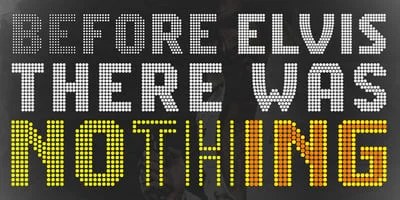
CA Viva Las Vegas Font
CA Viva Las Vegas Font excels in entertainment design applications including casino resort branding, Las Vegas show promotions, gambling establishment signage, entertainment venue materials, neon-lit restaurant communications, party supply packaging, theatrical production posters, glamorous event invitations, showbiz marketing campaigns, and dazzling lifestyle brands. This electrifying typeface brings Strip authenticity to high-energy entertainment projects.
What makes CA Viva Las Vegas Font truly exciting is its perfect capture of Las Vegas entertainment magic with flashy letterforms that evoke bright lights and casino excitement through spectacular design elements. The font features show-stopping characters with Vegas proportions and entertainment glamour that convey luxury, excitement, and the intoxicating energy of Sin City nightlife. Its spectacular personality and casino character make it ideal for brands celebrating entertainment culture, gaming excitement, and audiences who appreciate Vegas glamour, show business, and the thrilling atmosphere of world-class entertainment destinations.
The CA Viva Las Vegas Font family typically includes Regular weight with potential neon and glitter variations that enhance its Vegas character. These dazzling options provide designers with complete entertainment styling while maintaining the font's distinctive casino elegance and spectacular presentation across various entertainment applications and Vegas contexts.
Whether you're developing entertainment venue branding, creating casino campaigns, or designing spectacular marketing materials, CA Viva Las Vegas Font delivers the entertainment authority and Vegas sophistication that show business projects require. Its exceptional glamour and casino appeal make it invaluable for designers working with entertainment companies, gaming establishments, and show business brands requiring typography that celebrates Vegas entertainment heritage, casino excitement, and the spectacular allure of Las Vegas that continues to attract millions seeking the ultimate entertainment experience and glamorous nightlife adventure.